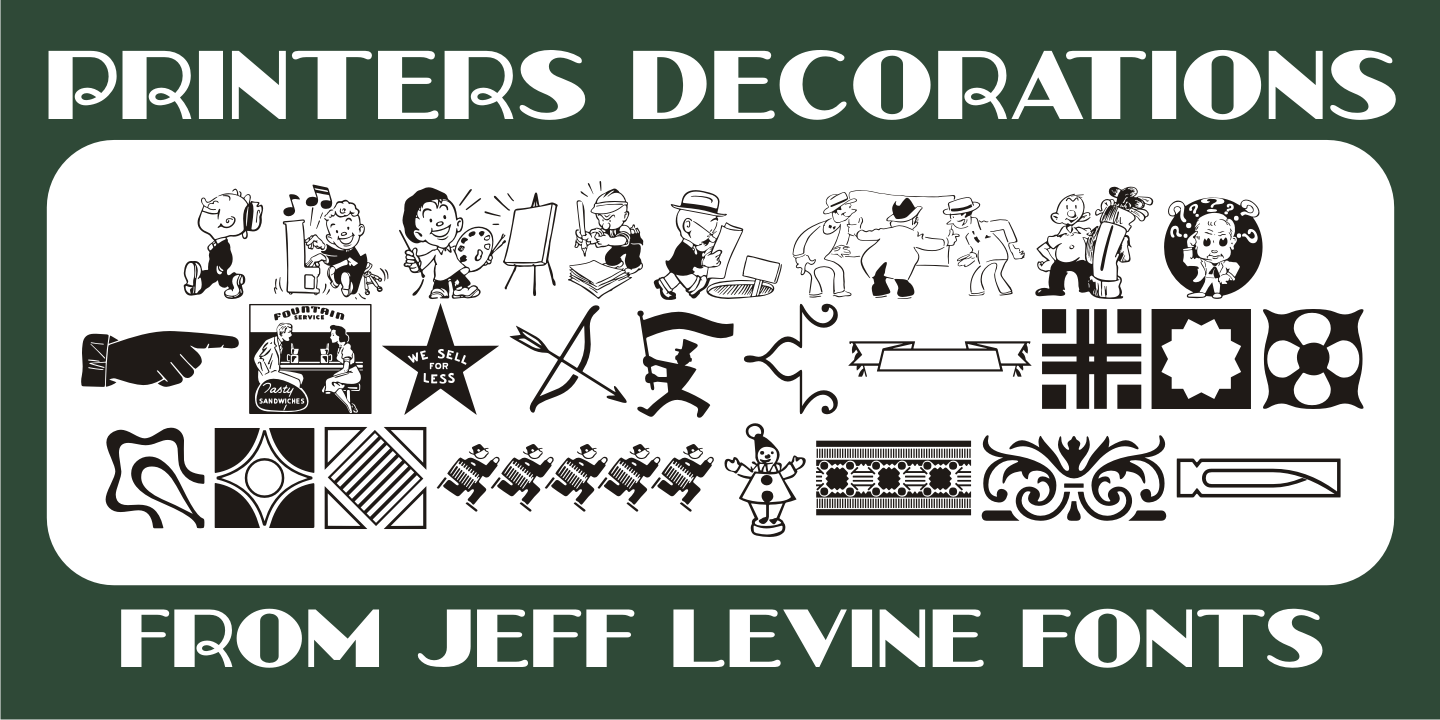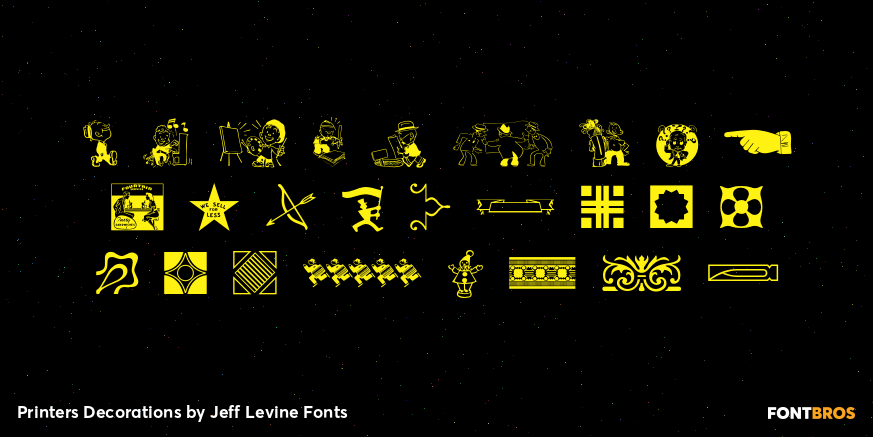
Printers Decorations
More vintage cartoons, decorations, embellishments and various letterpress dingbats have been re-drawn and collected in Printers Decorations JNL.